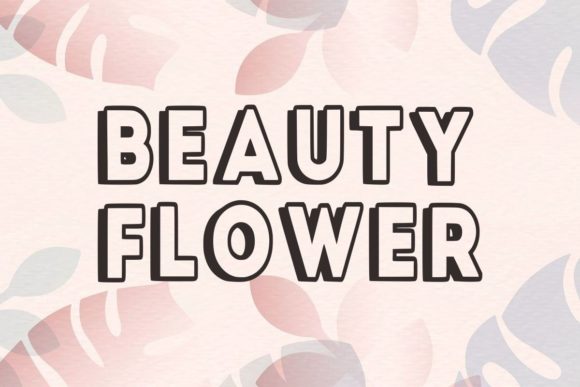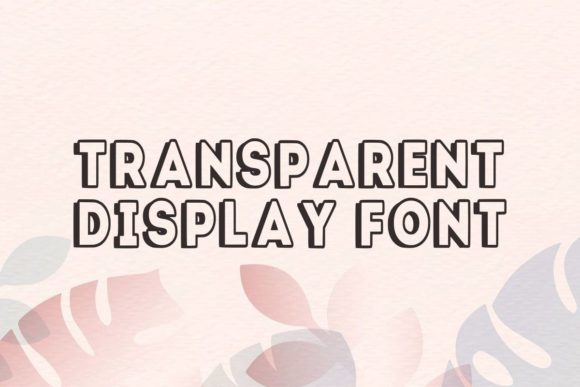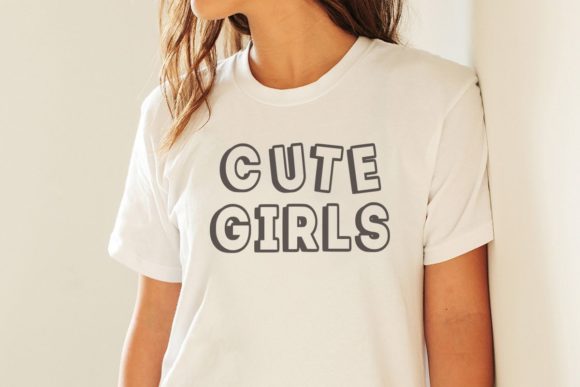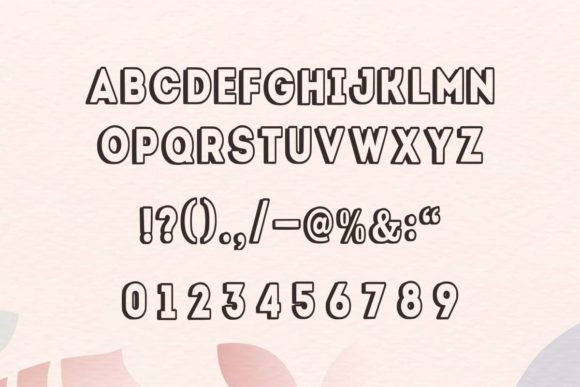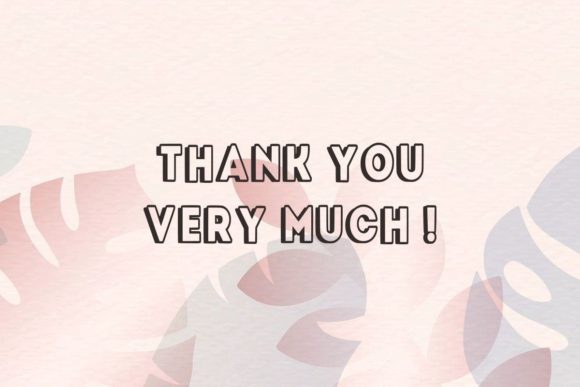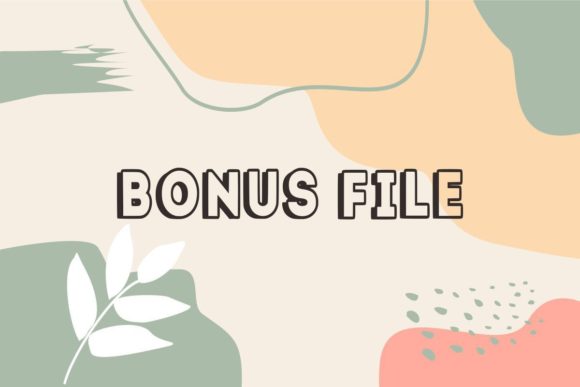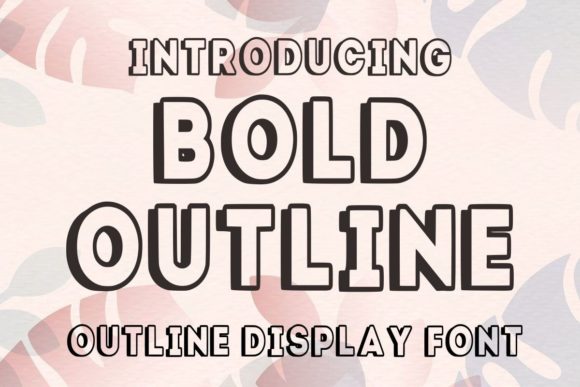
Introducing Bold Outline Font: The Ultimate Display Font for Designers and Crafters
In the world of typography, a good font can make all the difference in the success of a design project. Whether you’re a professional designer or a crafty DIY enthusiast, finding the right font can be a daunting task. That’s why we’re excited to introduce Bold Outline Font, an assertive and adaptable display font that’s easy to read and conveys impeccable friendliness.
What is Bold Outline Font?
Bold Outline Font is a display font designed to make a statement. Its bold and outlined style makes it perfect for a variety of applications, from digital design to crafts and presentations. The font’s clean and crisp lines ensure that it’s easy to read, even at large sizes. Whether you’re using it for a title, heading, or body text, Bold Outline Font is sure to grab attention and leave a lasting impression.
Key Features of Bold Outline Font
• Assertive and Adaptable: Bold Outline Font is designed to be versatile and adaptable. It can be used in a variety of contexts, from formal presentations to casual crafts.
• Easy to Read: The font’s clean lines and simple design make it easy to read, even for those with visual impairments.
• Impeccable Friendliness: Bold Outline Font conveys a sense of friendliness and approachability, making it perfect for designs that require a personal touch.
• Scalable: The font is designed to be scalable, ensuring that it looks great at any size.
Use Cases for Bold Outline Font
Bold Outline Font is a versatile font that can be used in a variety of applications. Here are some ideas to get you started:
• Crafts: Use Bold Outline Font to add a personal touch to your crafts, such as handmade cards, gift tags, and scrapbook pages.
• Digital Design: The font is perfect for digital designers who need a bold and eye-catching font for their projects, such as social media graphics, blog posts, and website headers.
• Presentations: Add a professional touch to your presentations with Bold Outline Font. It’s perfect for titles, headings, and bullet points.
• Greeting Cards: Use Bold Outline Font to create personalized greeting cards for special occasions, such as birthdays, holidays, and weddings.
Why Choose Bold Outline Font?
With so many fonts available, why choose Bold Outline Font? Here are a few reasons why designers and crafters love this font:
• Unique Style: Bold Outline Font has a unique style that’s both bold and elegant.
• High-Quality: Bold Outline Font is a high-quality font that’s designed to produce crisp and clear results.